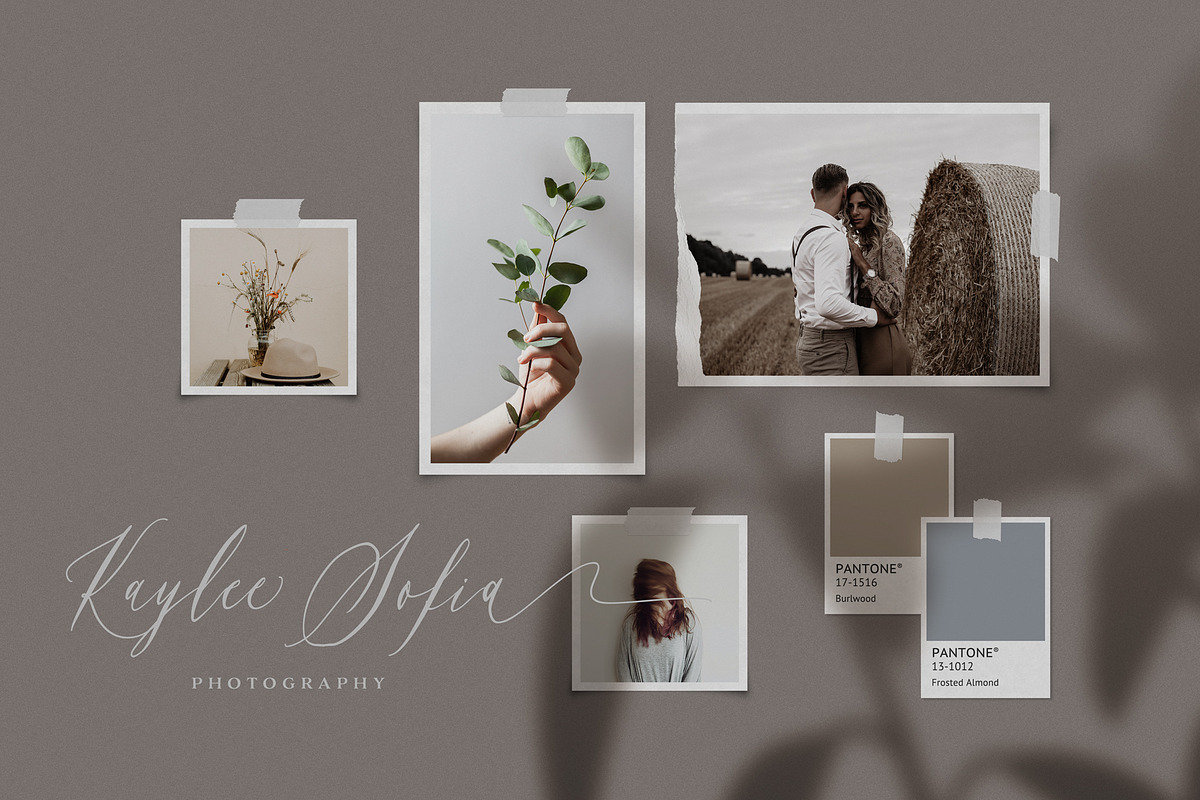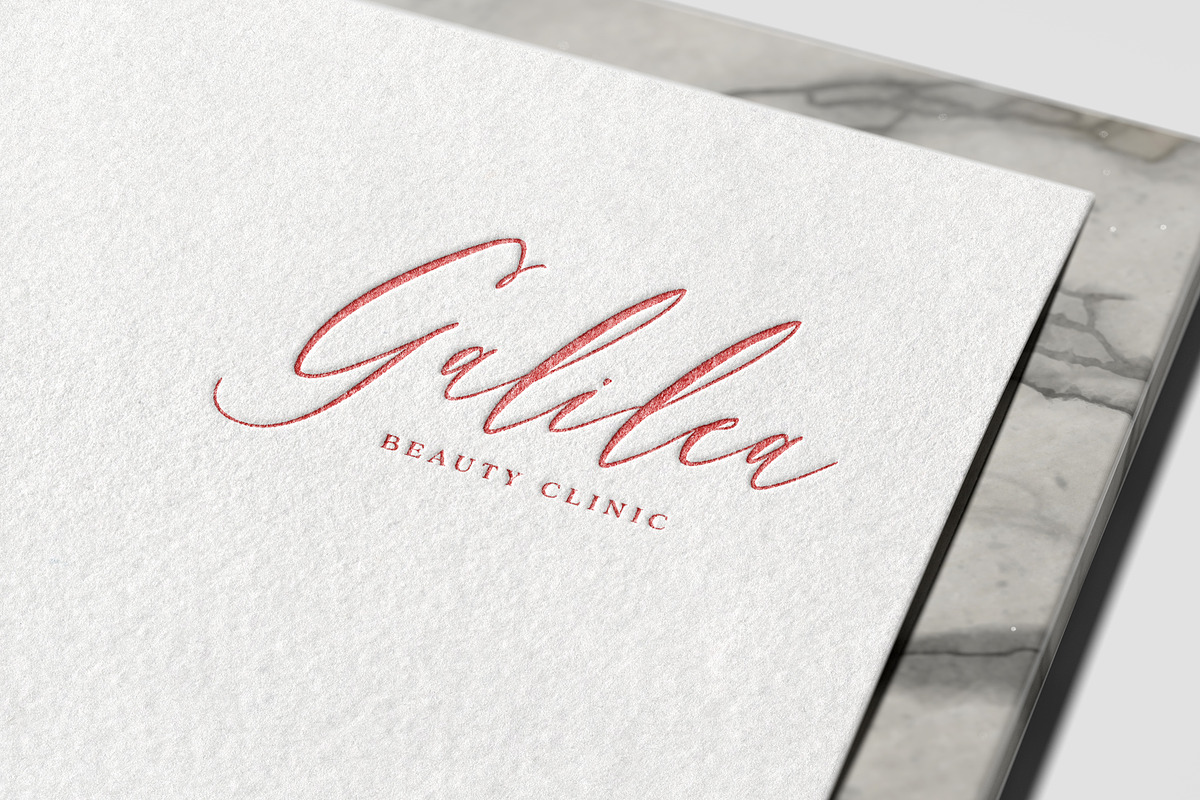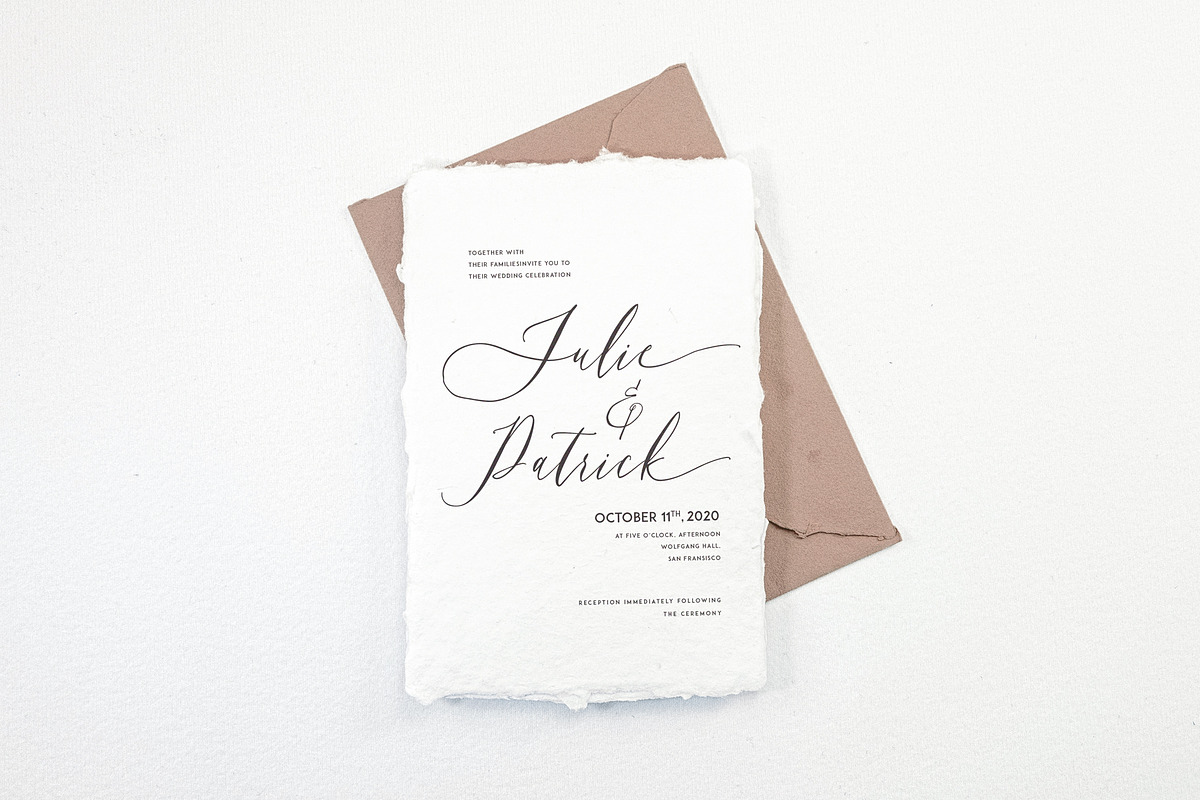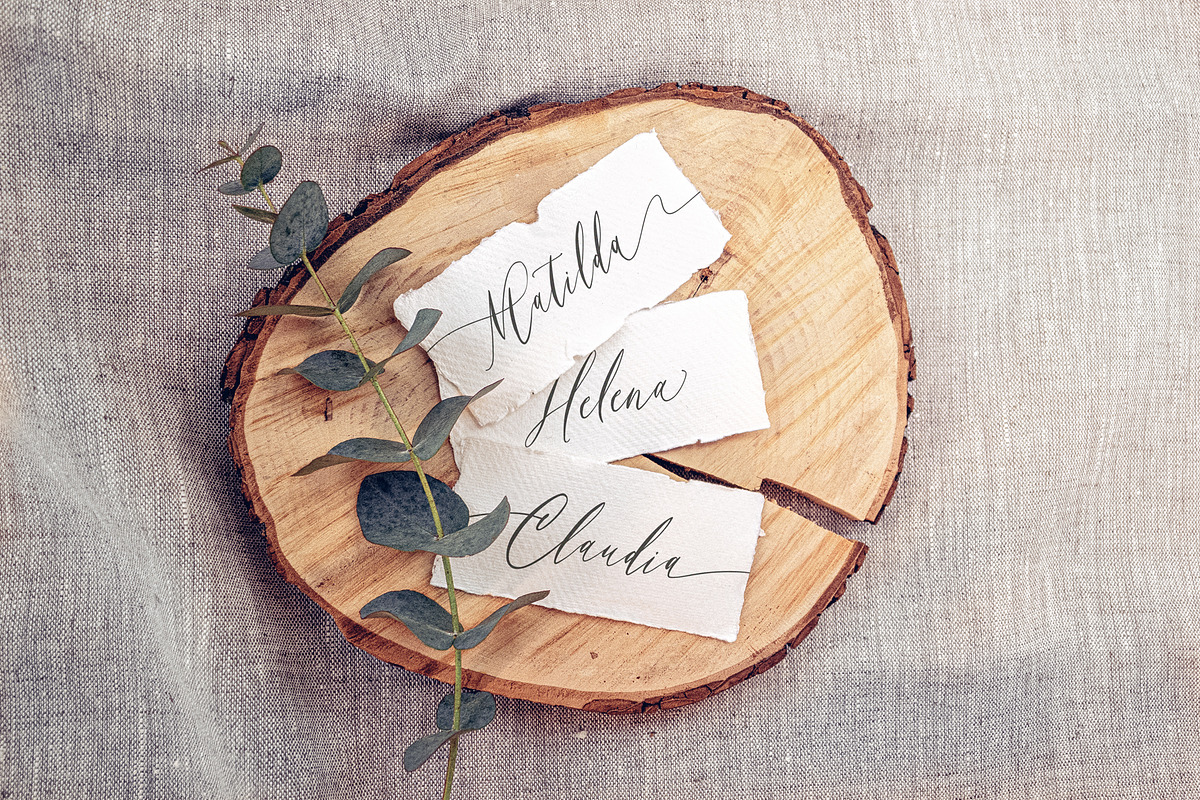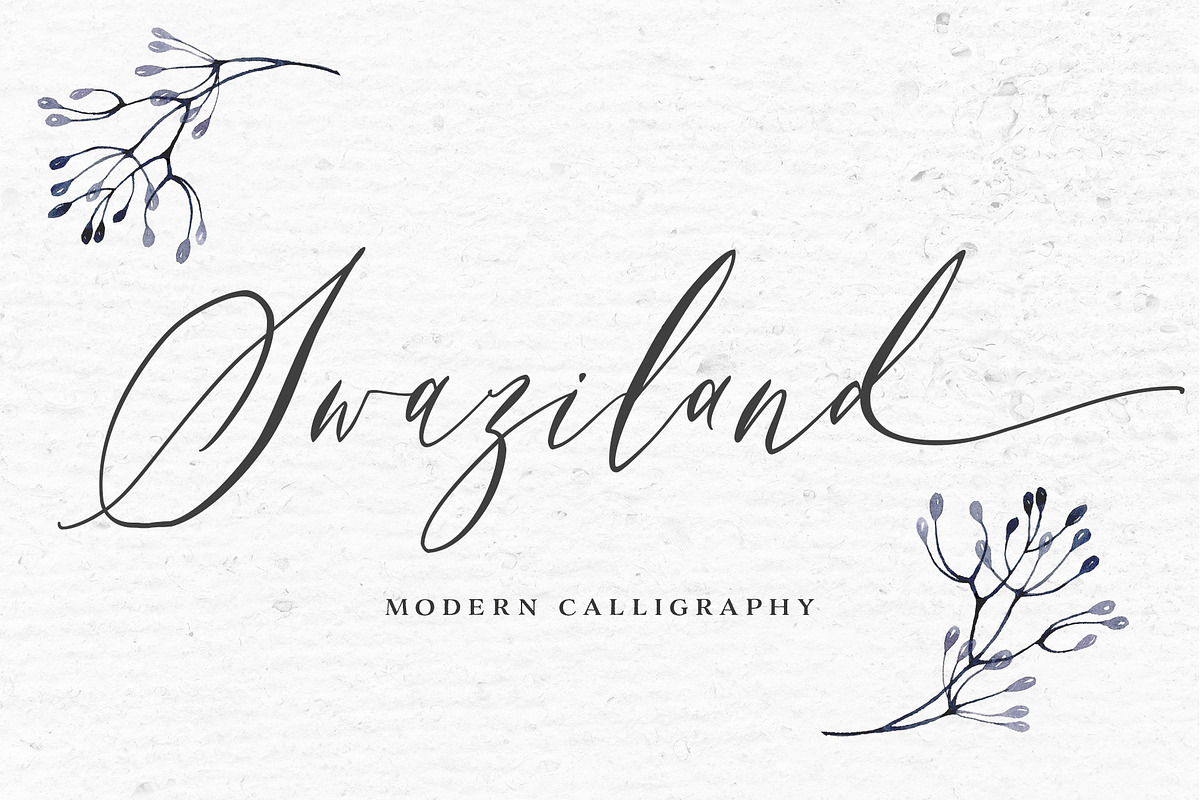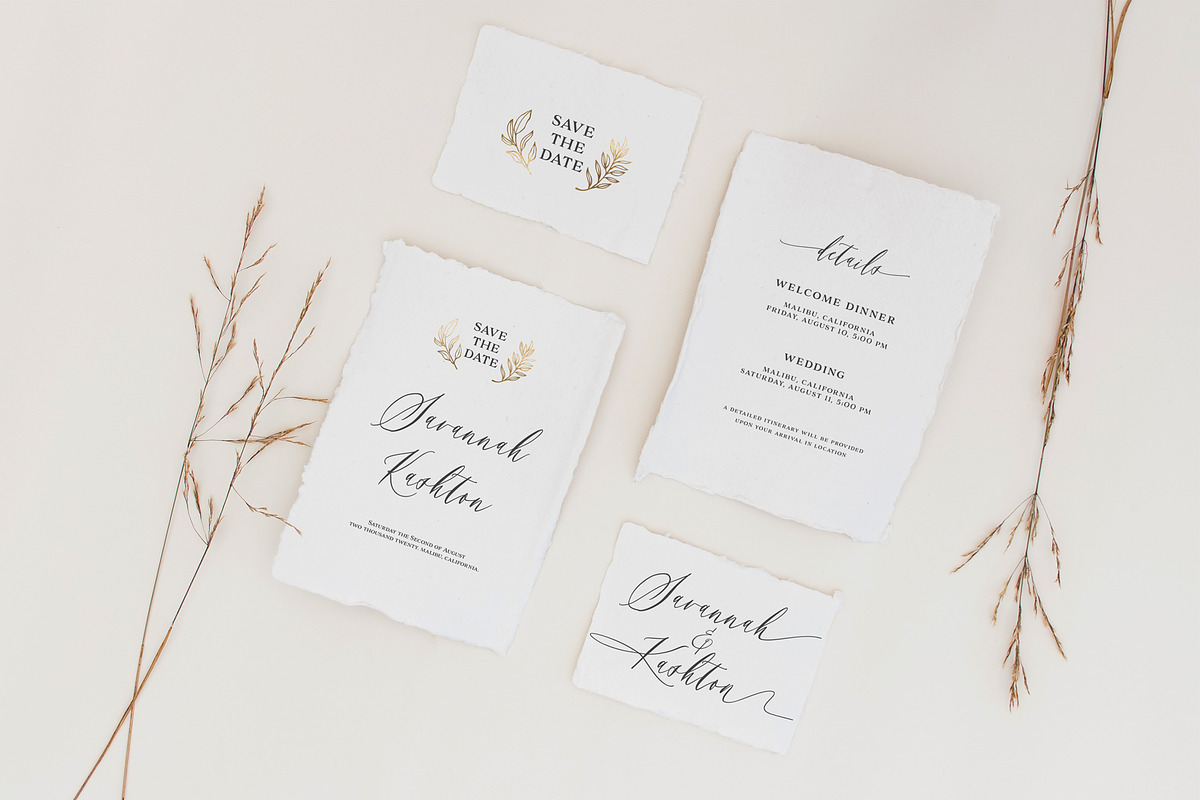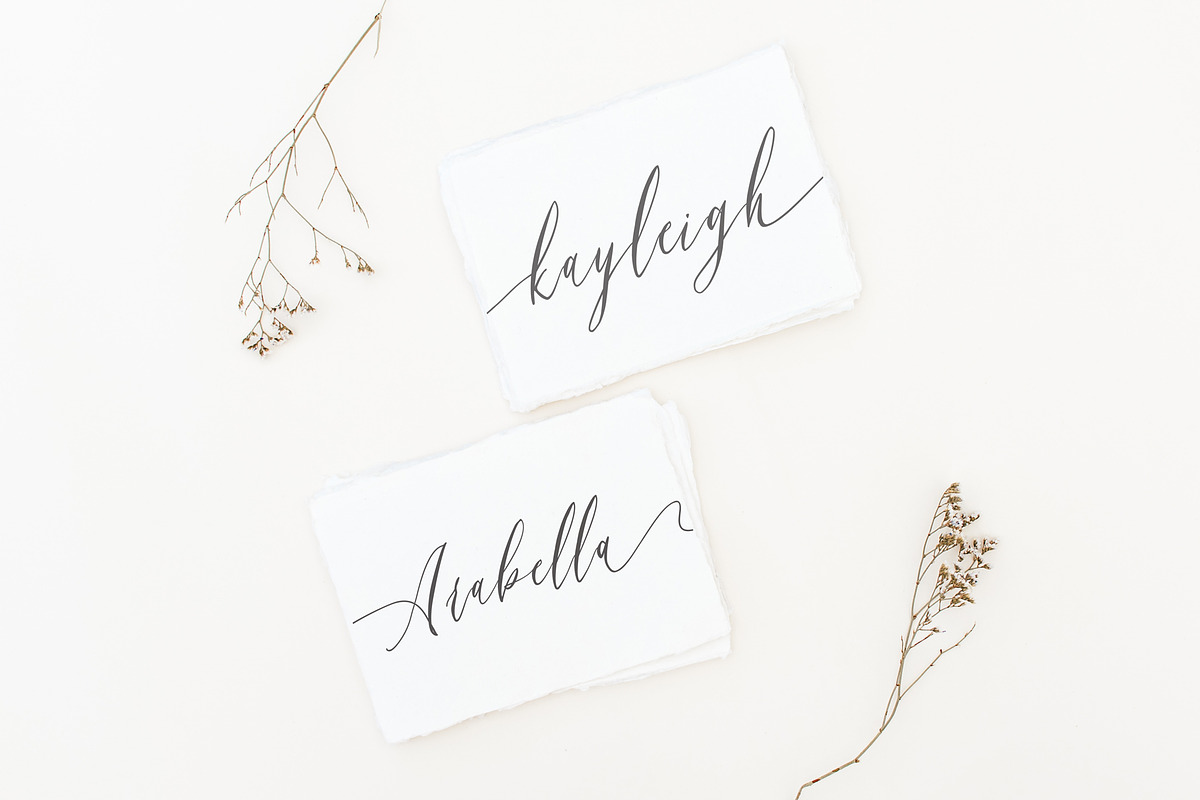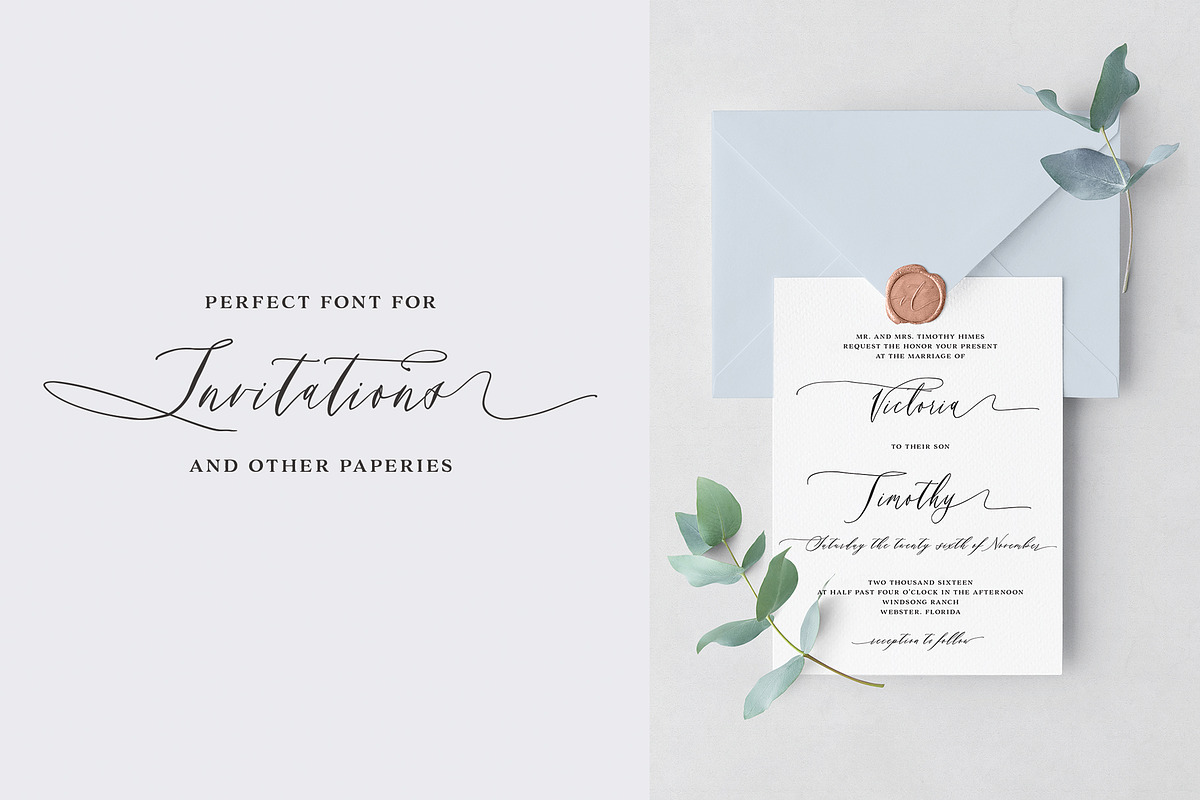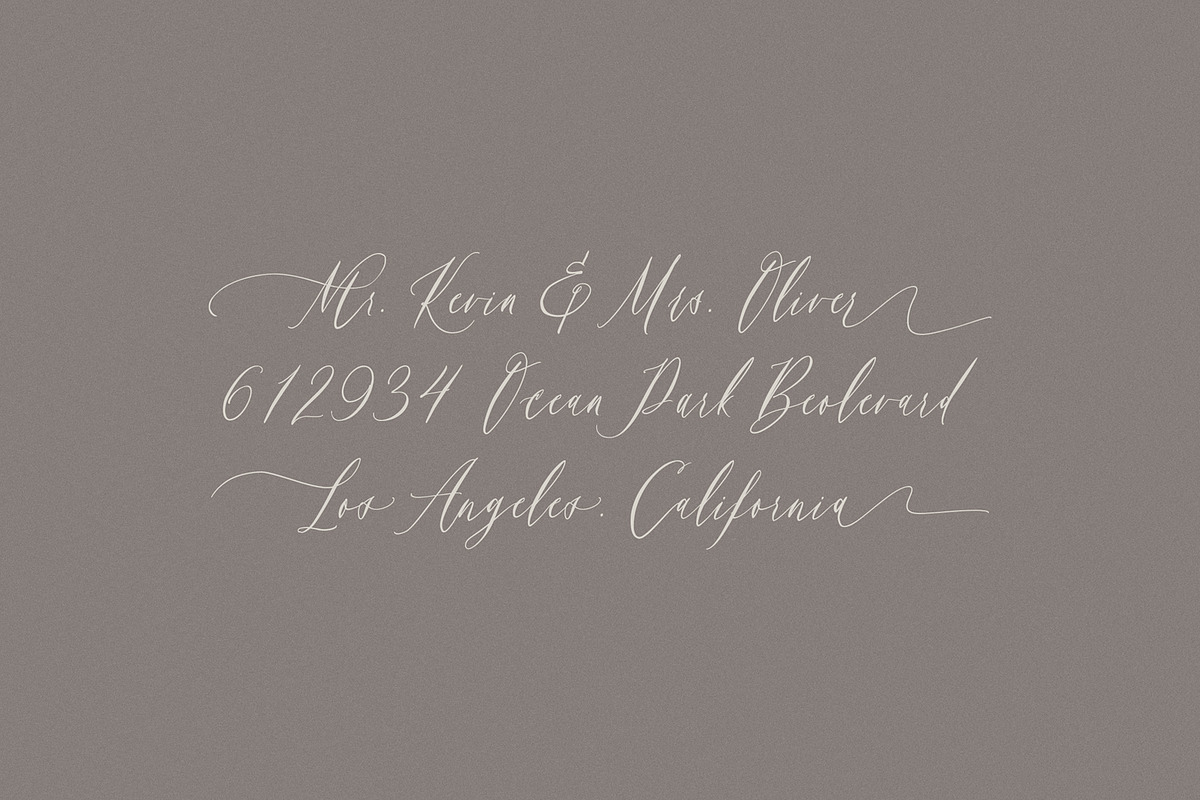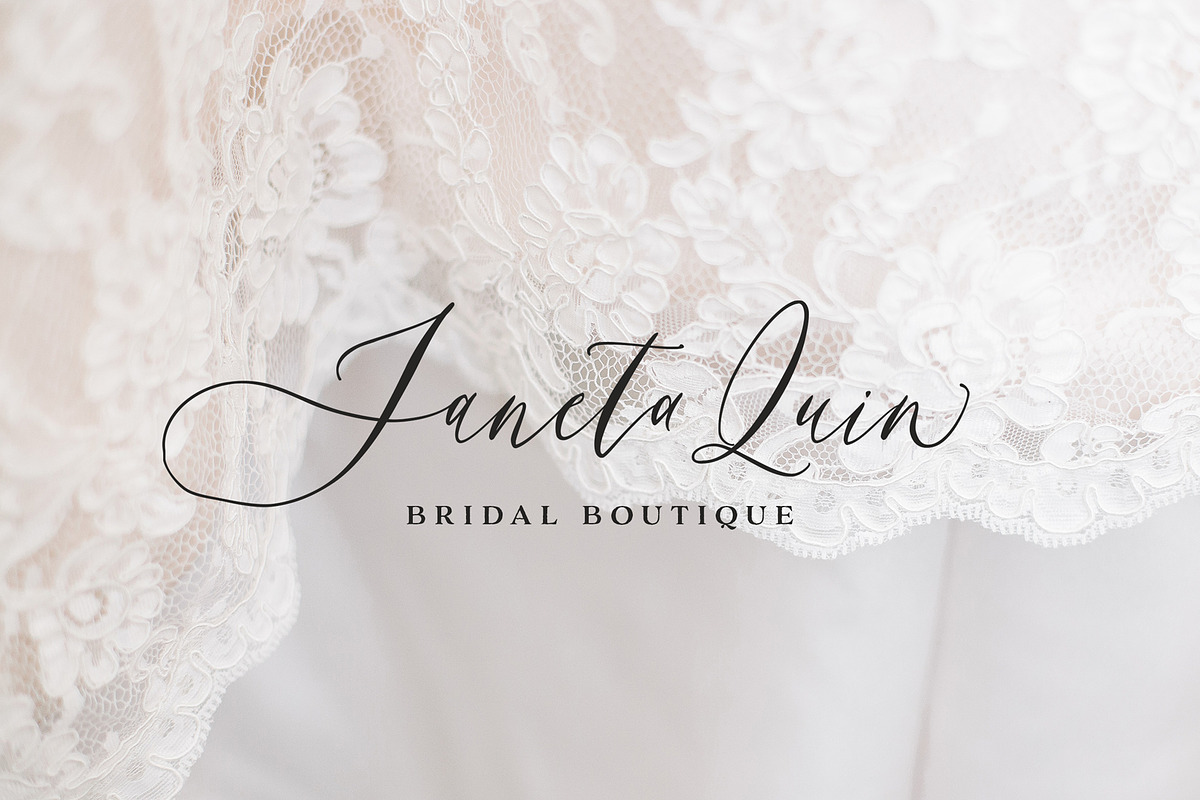
Introducing... Swaziland Modern Calligraphy Font! For those of you who are needing a touch of elegance and modernity for your designs. This font is particularly well-suited to create the most lovely wedding designs, invitations, mood board, social-media template or for your editorial design needs.
Swaziland comes with more than 430 glyphs, includes beginning and ending swashes, alternate swash characters, uppercase and lowercase letters, numerals, and a large range of punctuation.